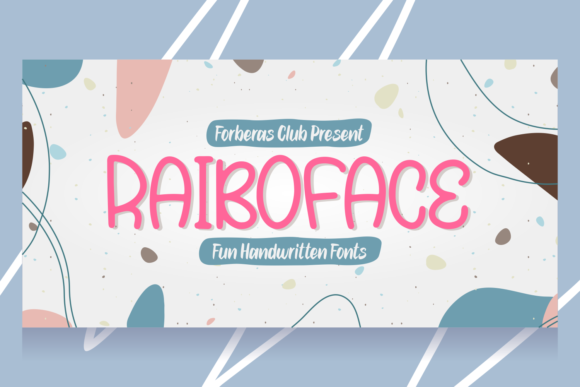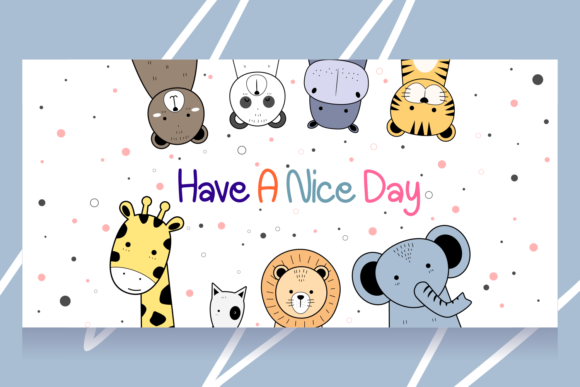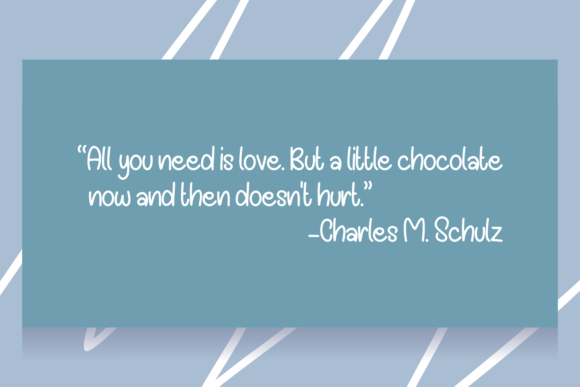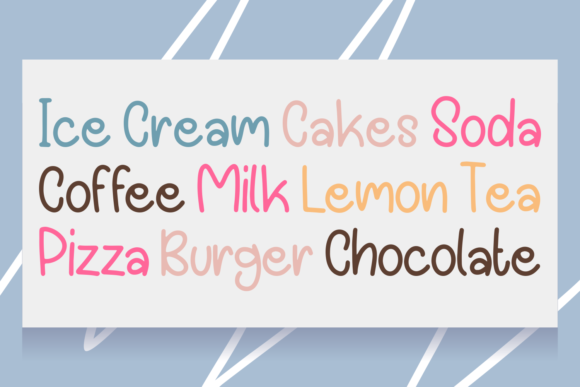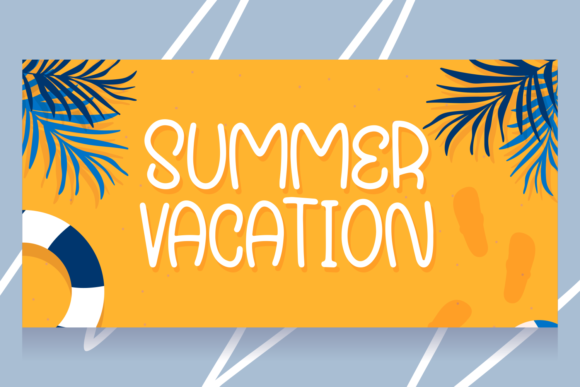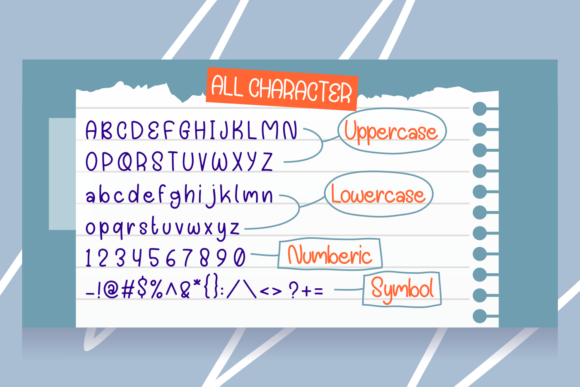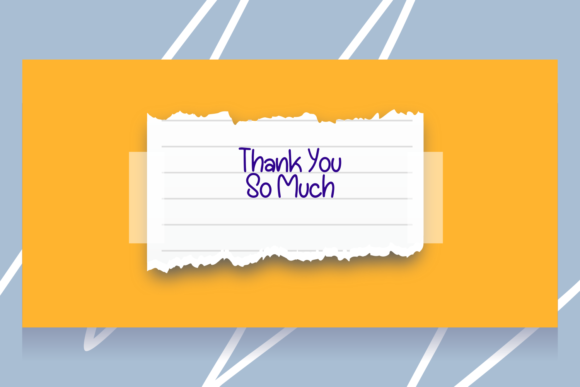
Raiboface Font
About Raiboface Font
Raiboface is a cute, whimsical and relaxed handwritten font that can be used for all chalkboard quotes or teaching material! Its authentic look will add a personal and realistic feel to your designs.